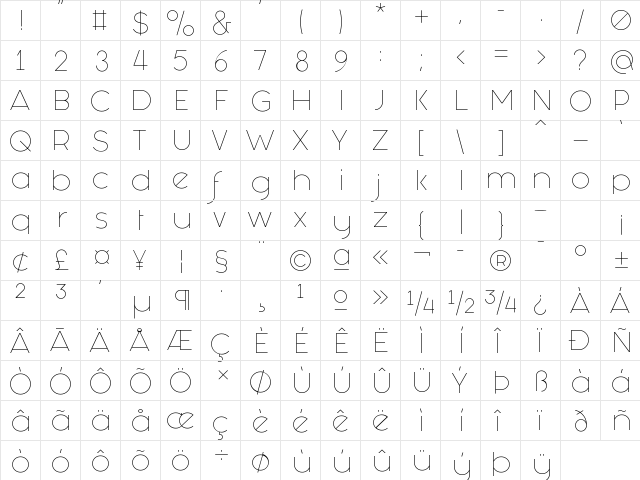
Fashion Fetish Light Regular
Design Context for Fashion Fetish Light Typeface
Fashion Fetish Light offers clean, dependable letterforms without strong stylistic allegiance, making it a practical choice for designers who need flexibility. The delicate stroke weight brings airiness and refinement to layouts.